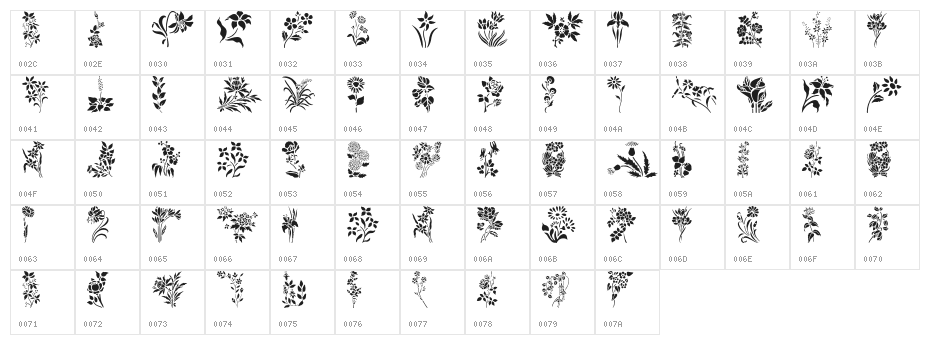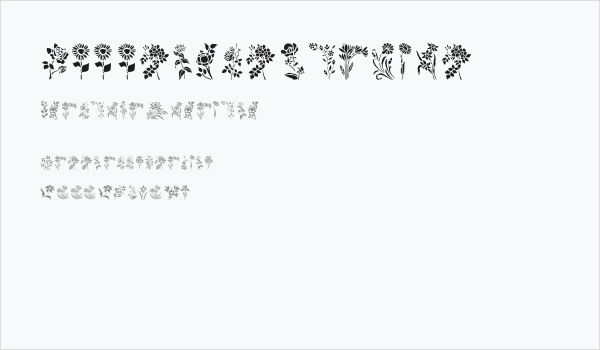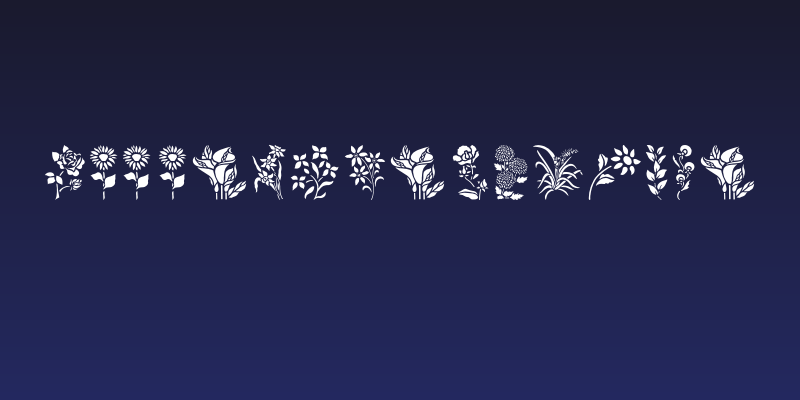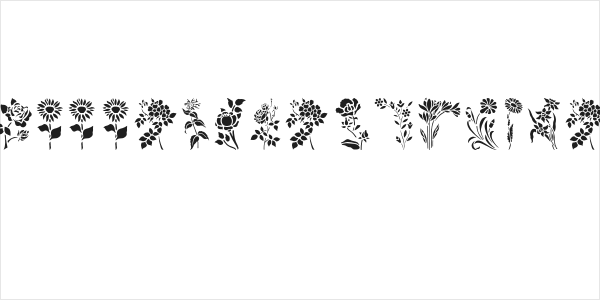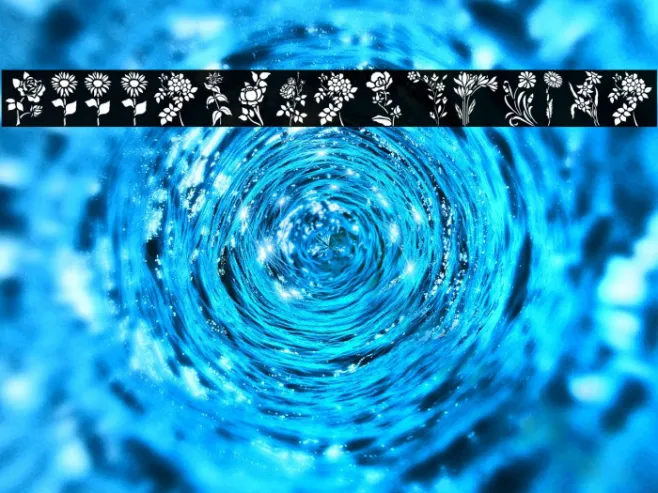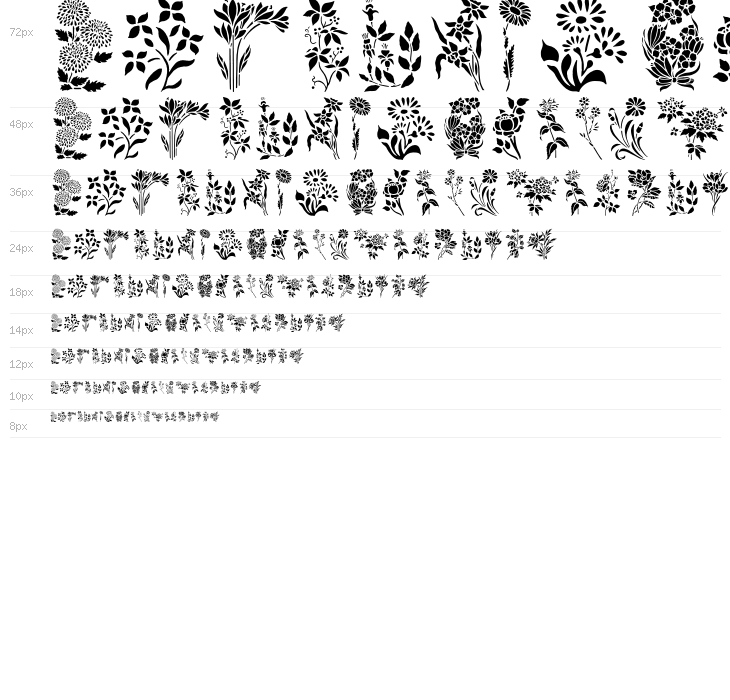
HFF Floral Stencil Font
HFF Floral Stencil Description
A decorative collection of floral stencil illustrations, each glyph representing a unique flower or plant in a bold, silhouette style. The designs are highly ornamental, with intricate details and strong contrast between black and white, suitable for decorative and artistic applications.
| Overall Style | Decorative, Ornamental, Stencil |
| Use Case | Decorative elements, Crafting, Logos, Headings, Art projects |
| Proposed Projects | Craft projects, decorative headings, invitations, scrapbooking, textile design, wall art, and digital embellishments. |